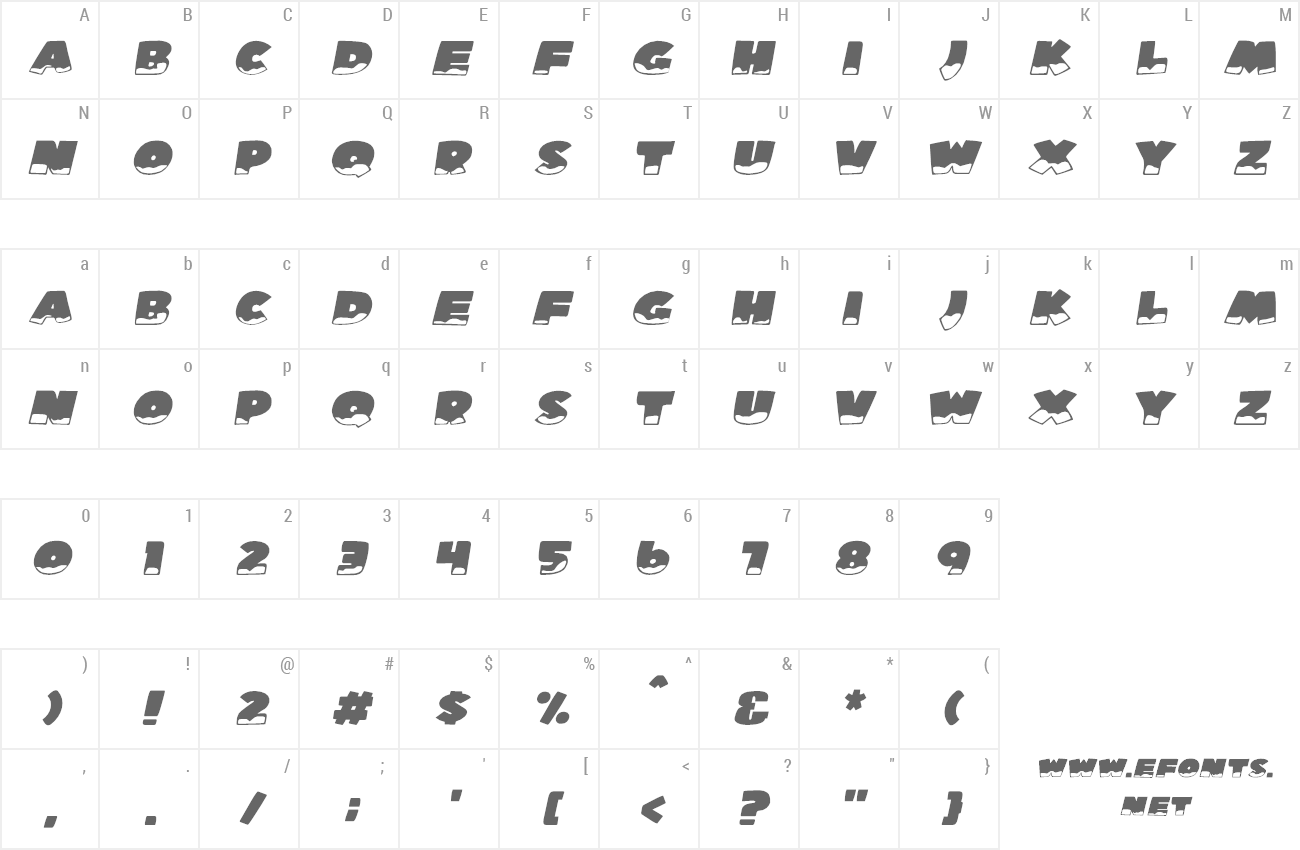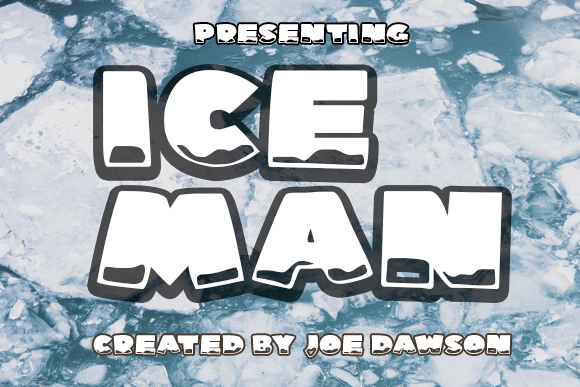
| Font name: | Ice Man |
| Author: | Joseph Dawson |
Ice Man is a fun, cartoon-styled display font, perfect for warm summer days. Add this font to your creative ideas and notice how it will make them stand out! This font is for personal use ONLY ... although donations are appreciated! Kindly give as much as you honestly feel the font is worth to you. Paypal account for donation: dawsonjoseph333@gmail.com For commercial use you must pay $10 USD. Link to purchase a commercial license : https://www.creativefabrica.com/product/ice-man/ref/236312/ Please visit our store for more great fonts: https://www.creativefabrica.com/ref/236312/ |